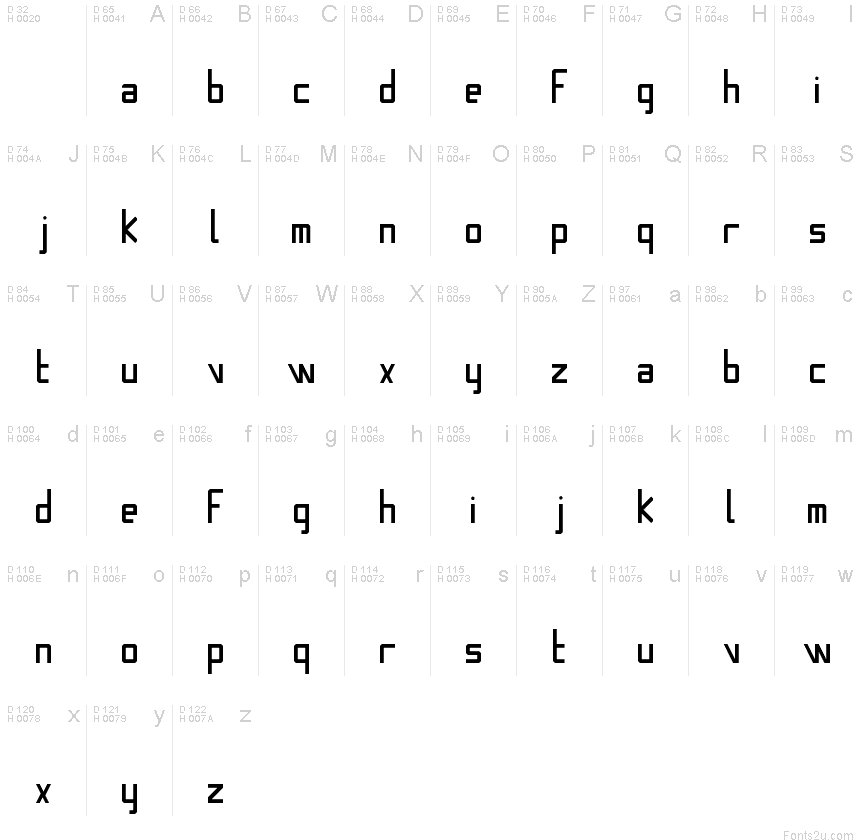
Banana Square by Wolf Lambert is a free techno display font with narrow proportions, rigid geometry, and crisp diagonal cuts at many turns. Tall vertical strokes give the lettering an architectural silhouette.
Electronic music festival posters and architecture studio branding both benefit from its severe profile, linking futuristic entertainment with a tougher urban sensibility. It can also shape game interfaces and technology packaging, especially when the lettering becomes part of a device panel or machine label. The clipped corners and elongated uprights echo industrial housings and circuit-board paths, a specific mechanical reference for those applications rather than generic futurism.
Banana Square
Wolf Lambert